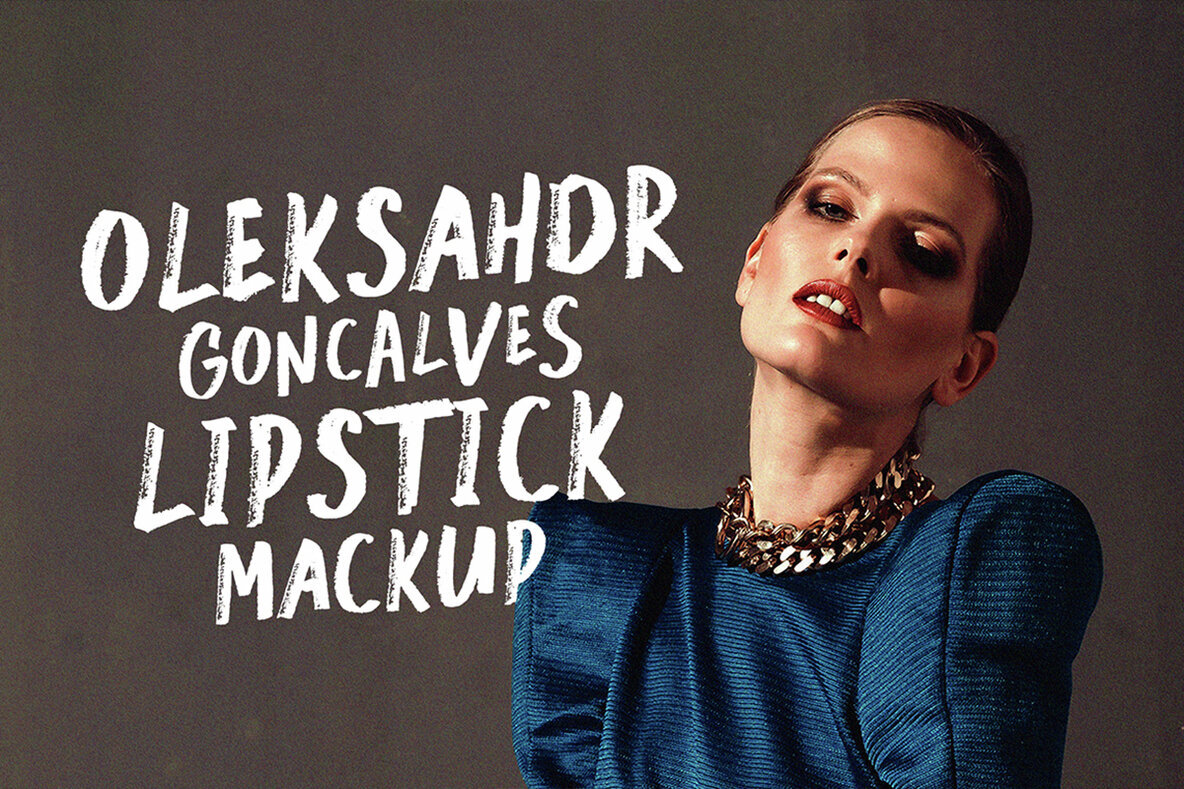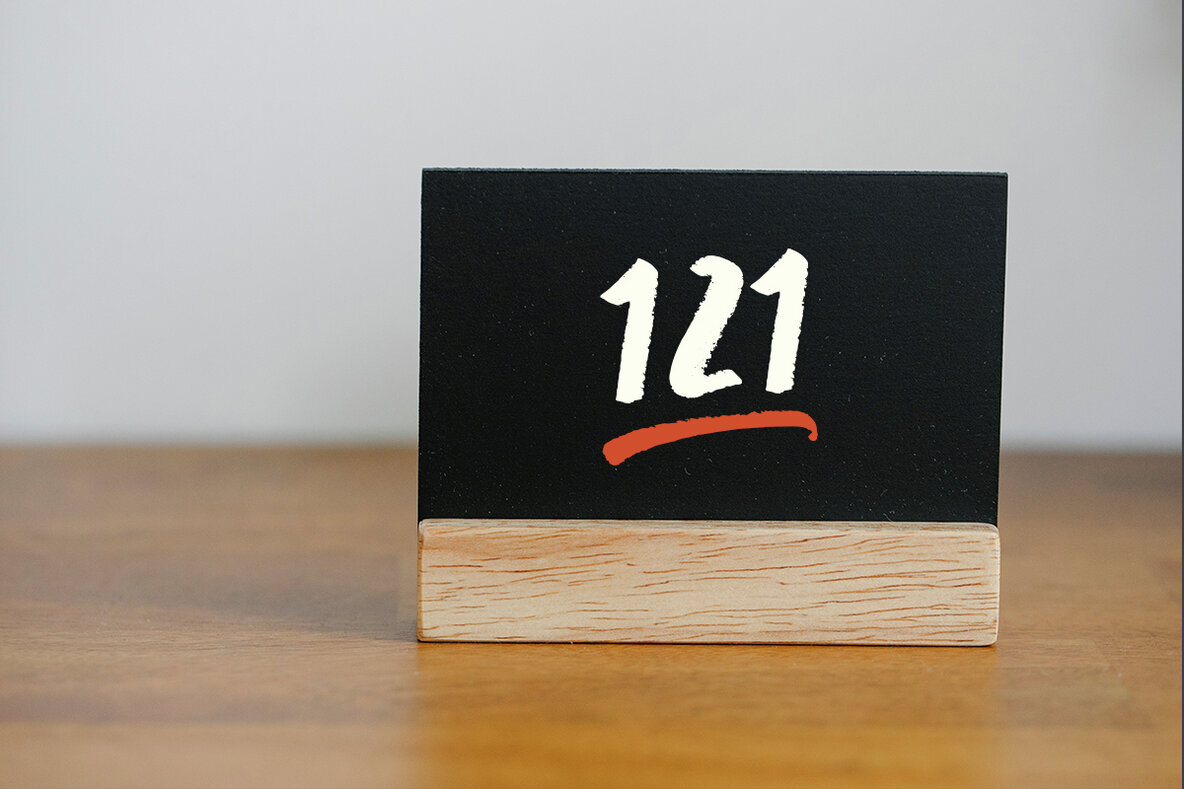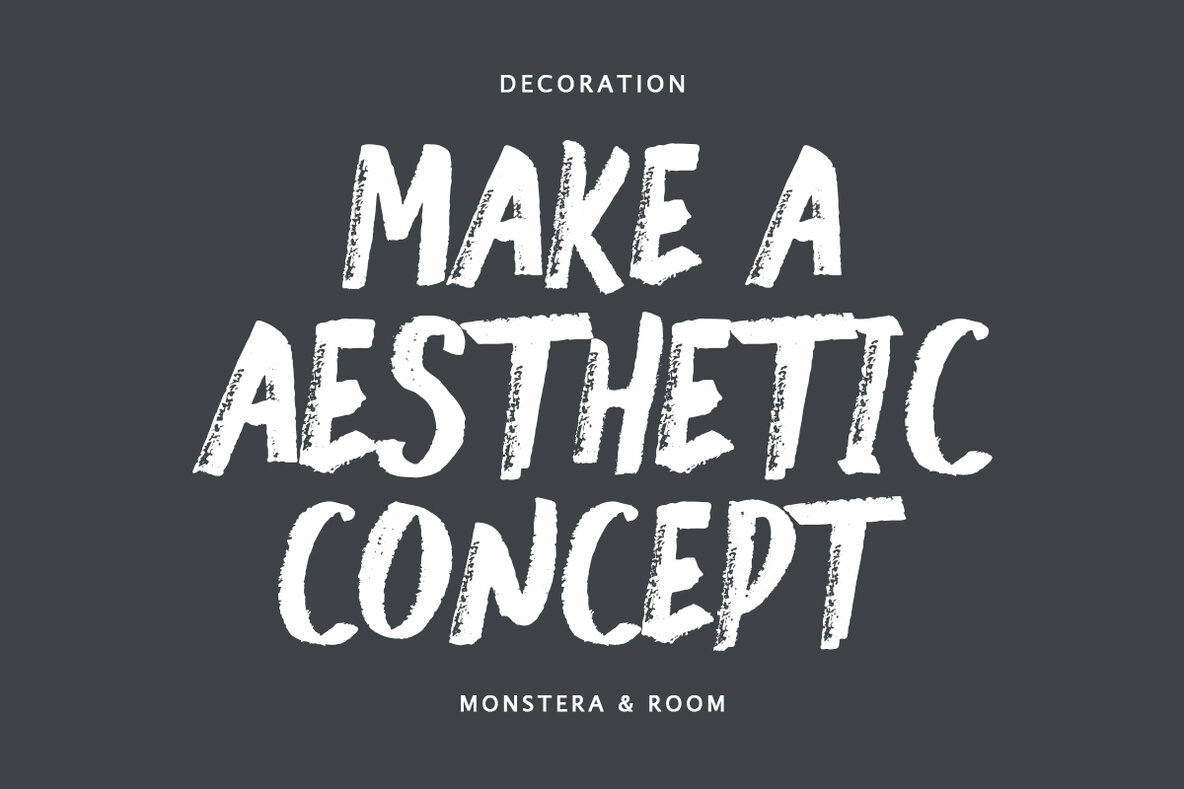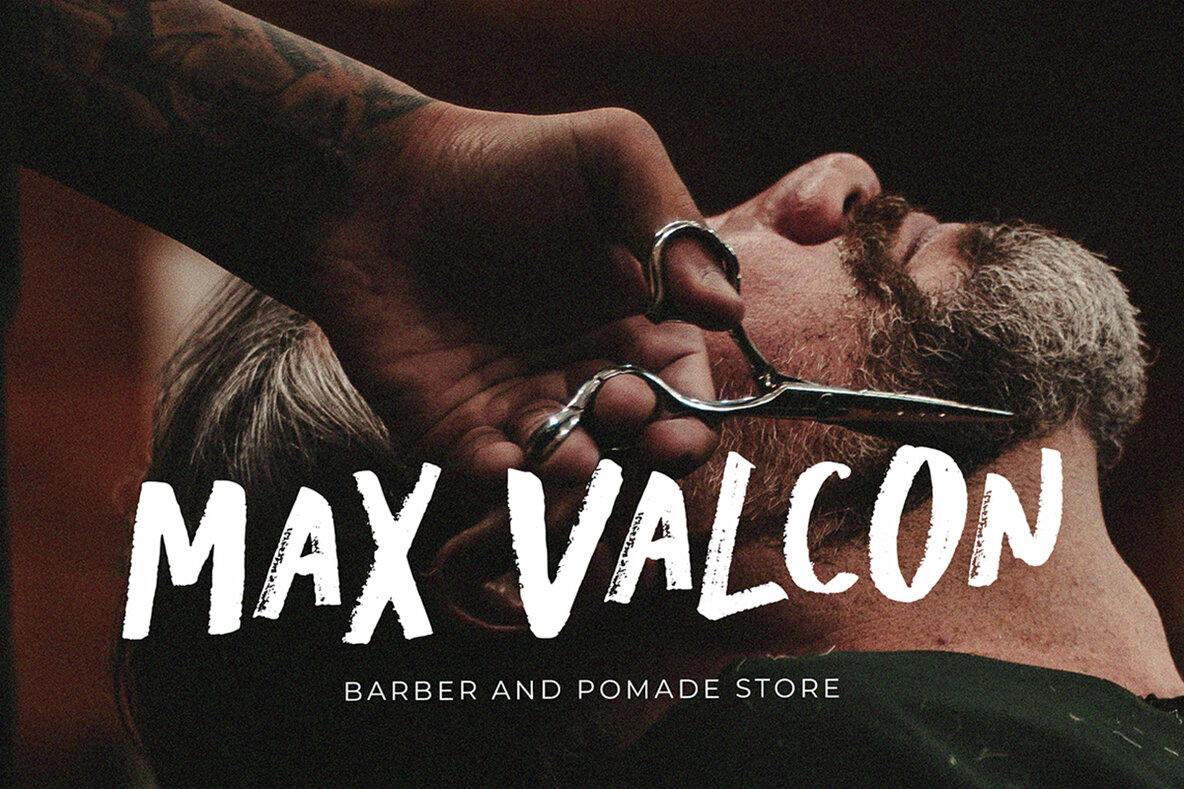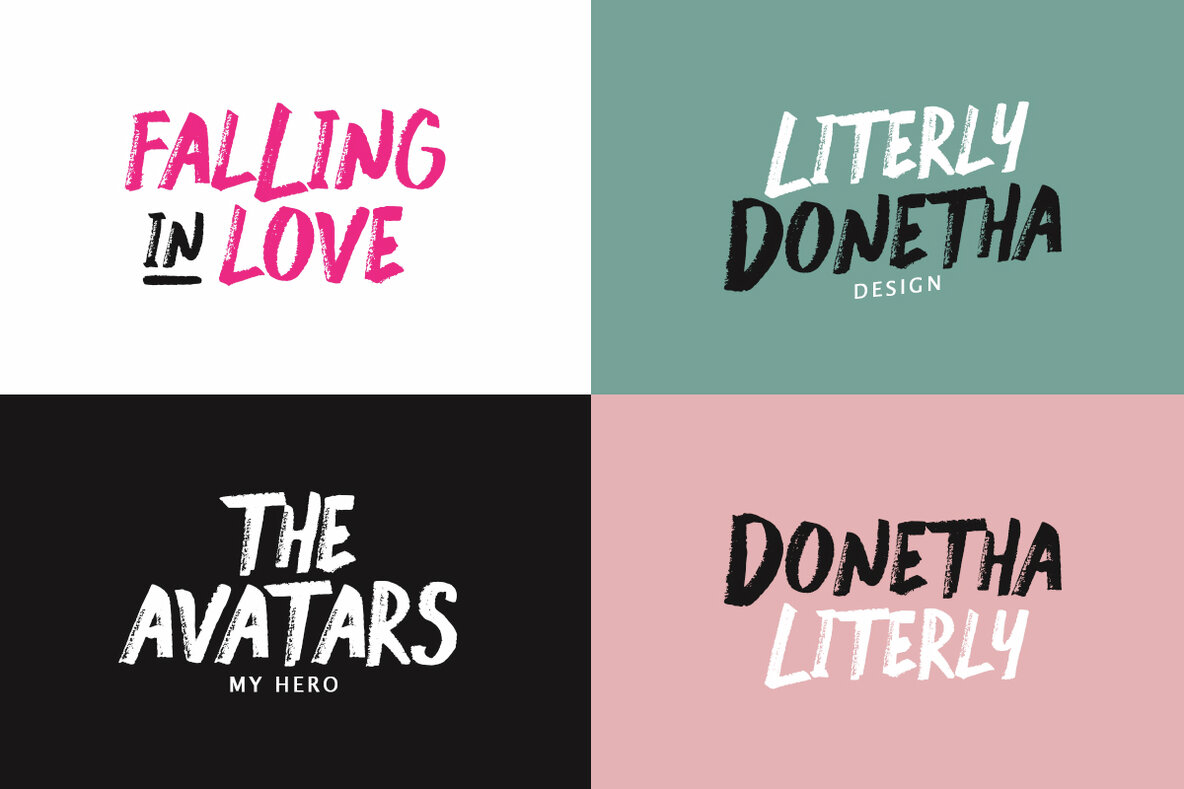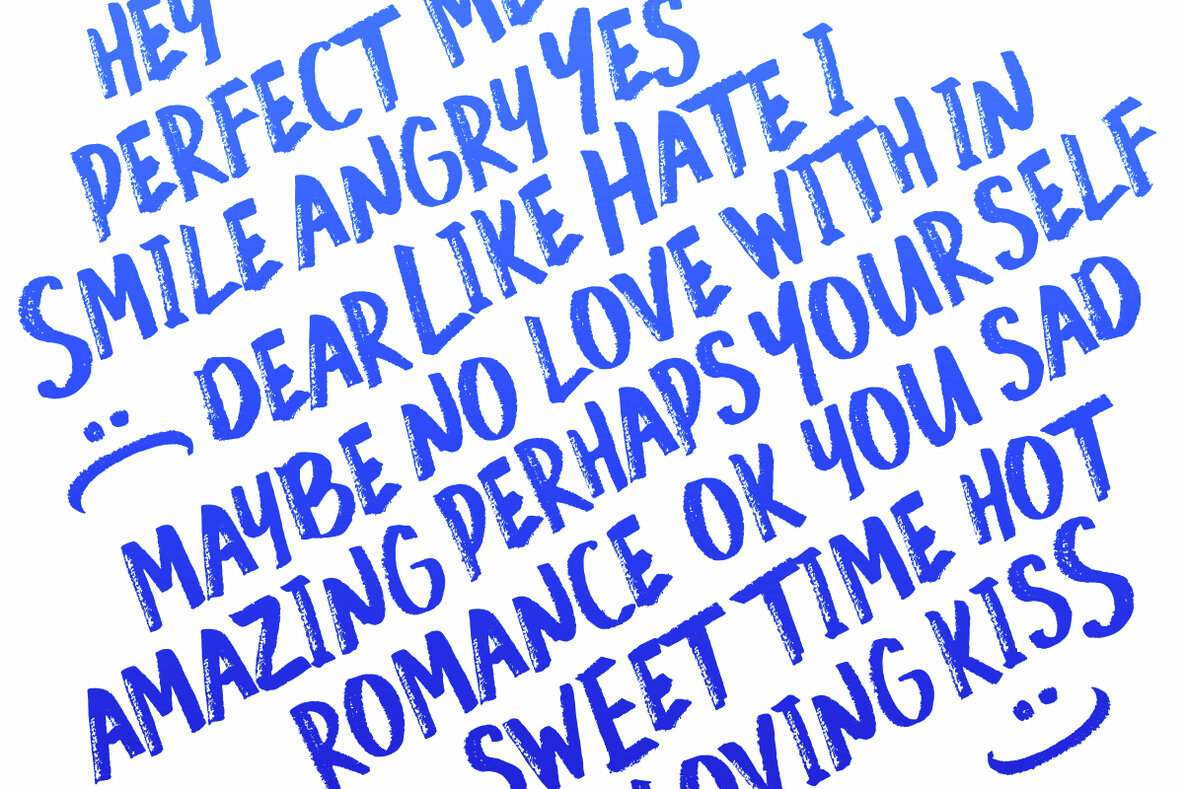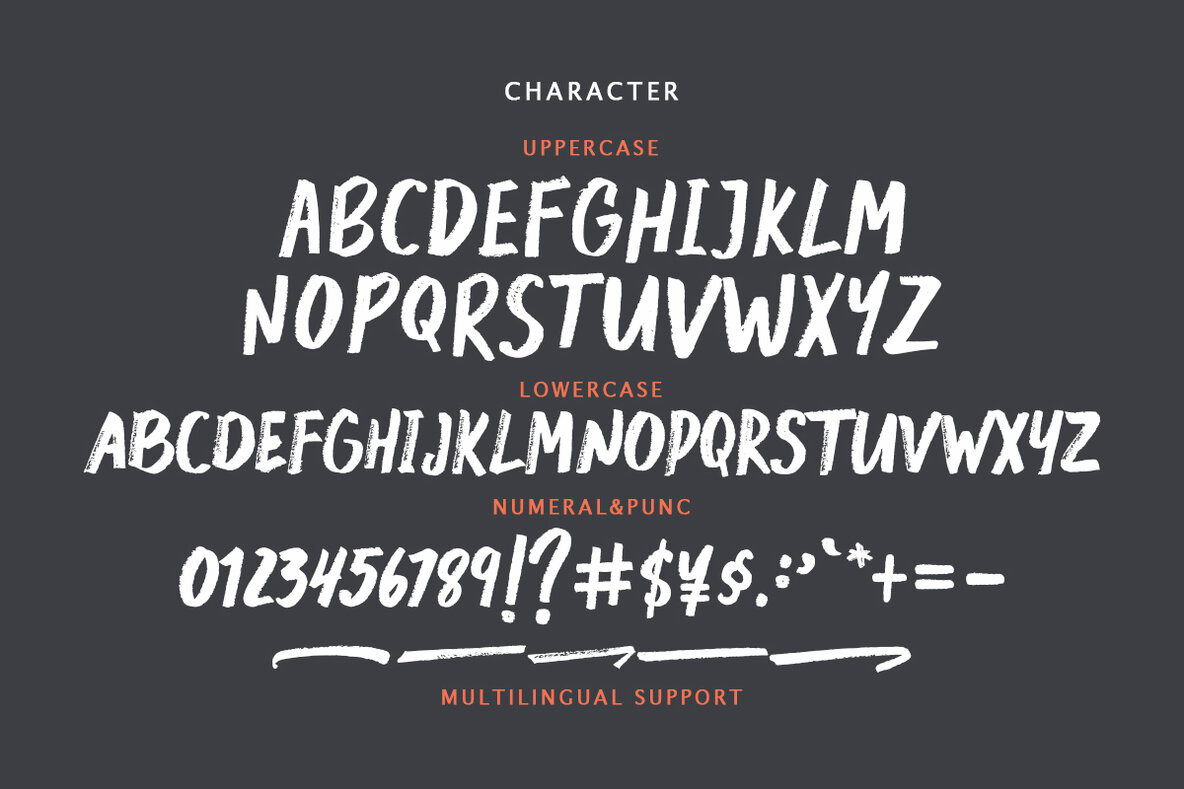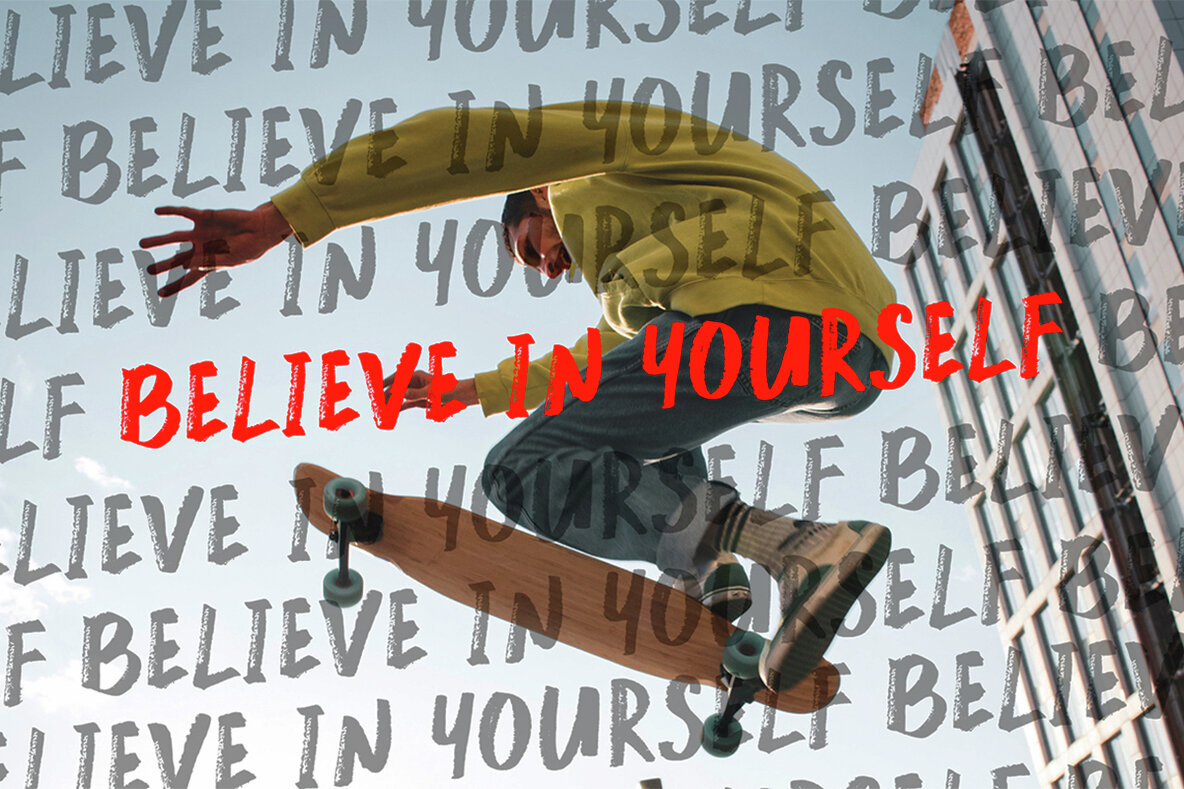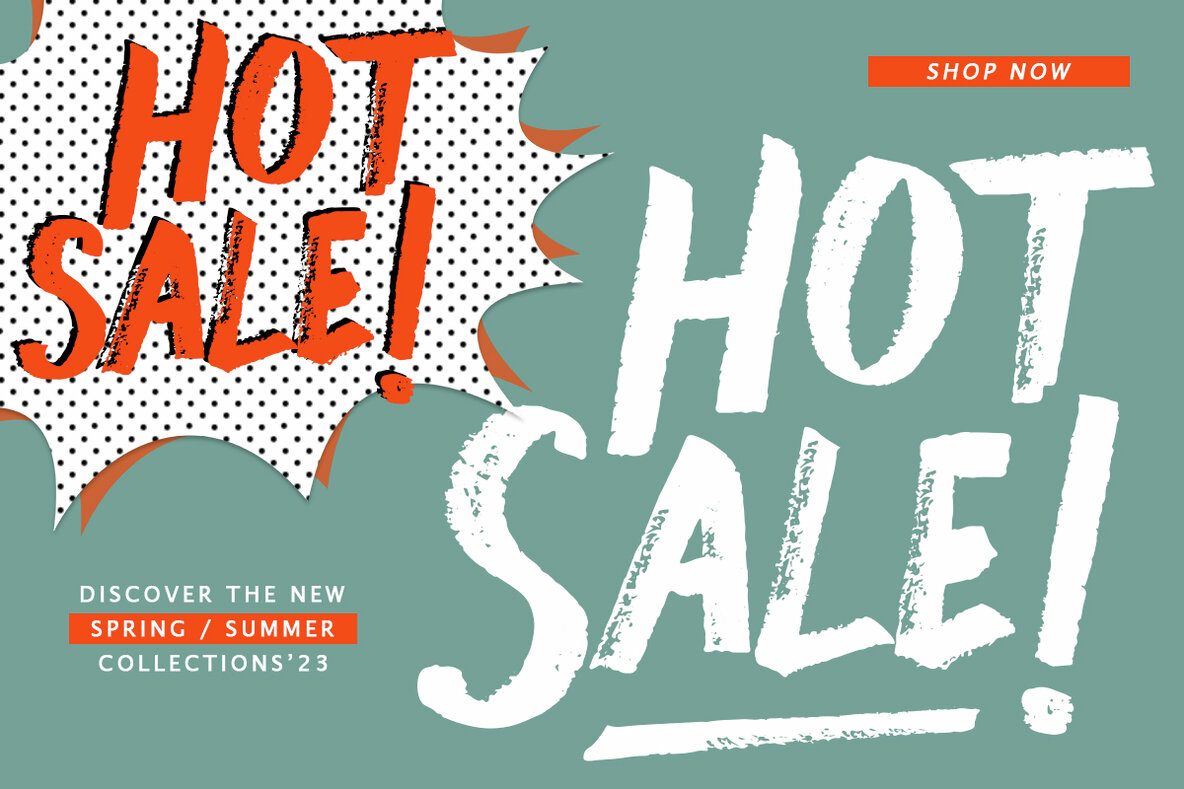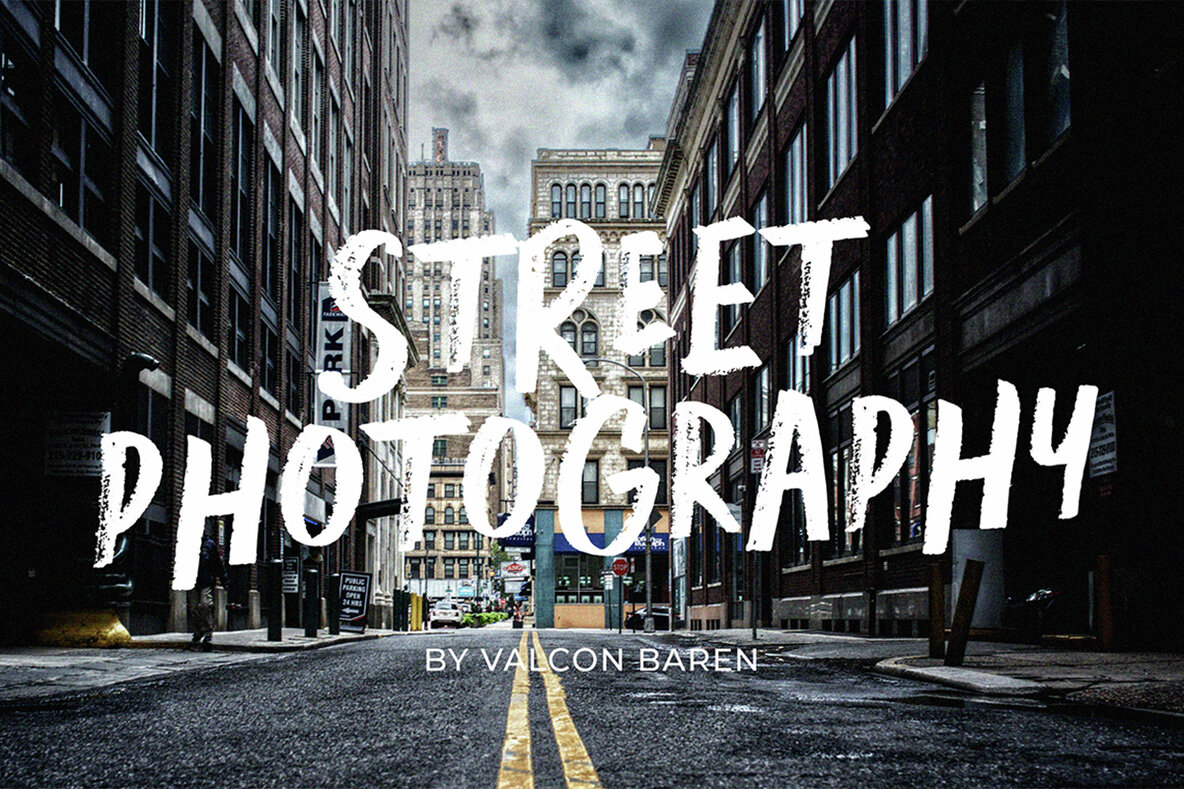
Beverly Catherine is a bold hand drawn all-caps marker font that has really original brush edges and is rough in every stroke.
Great for logos, merchandise, product packaging, quotes, comic book text, and hard-hitting titles. It also includes multilingual support.